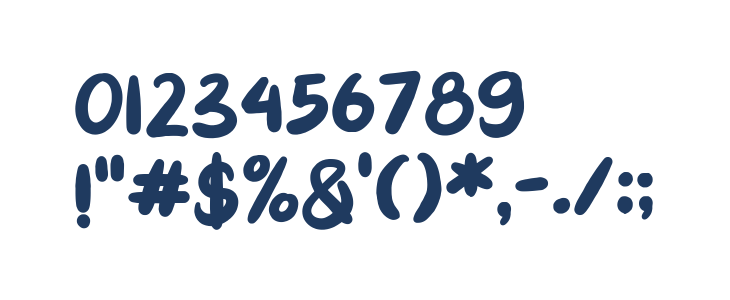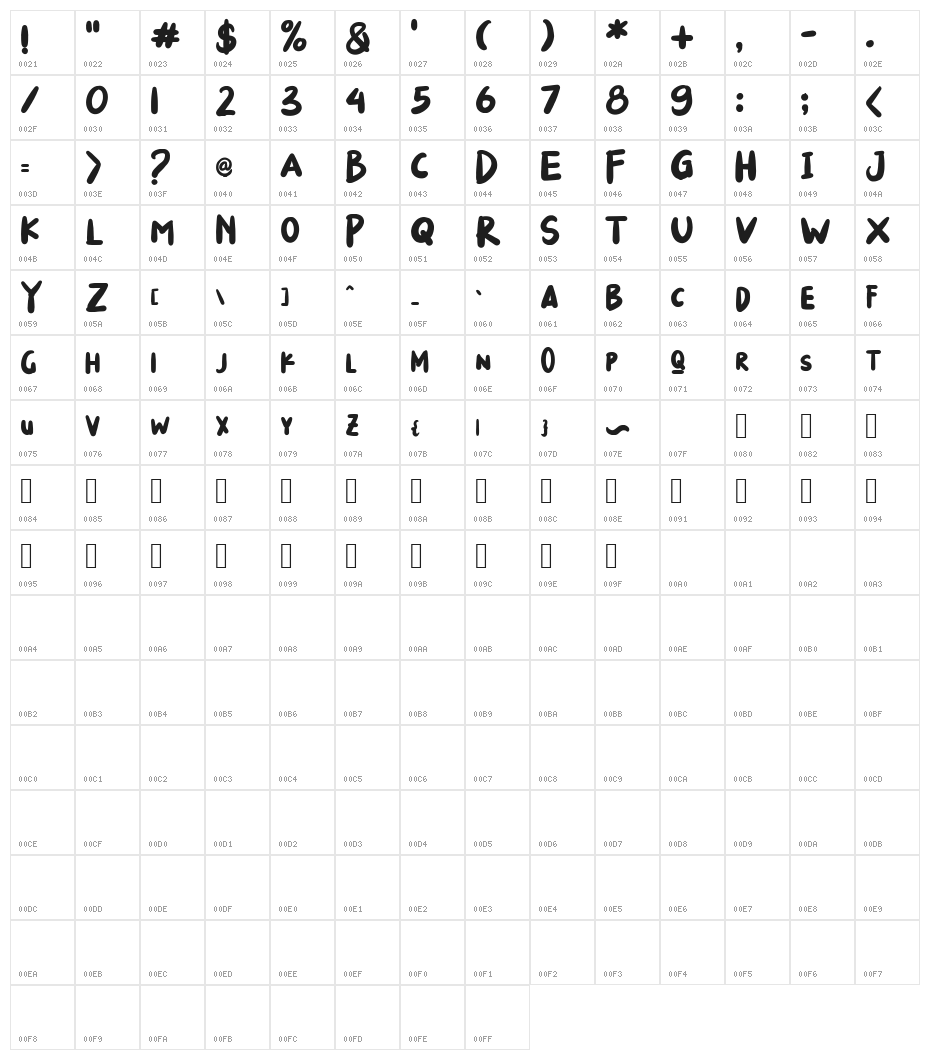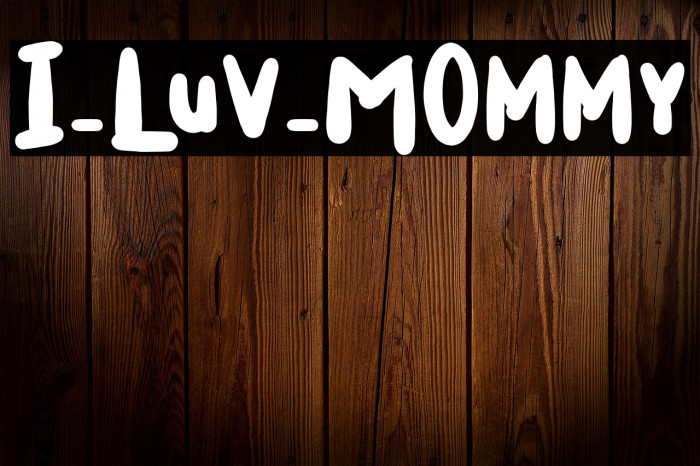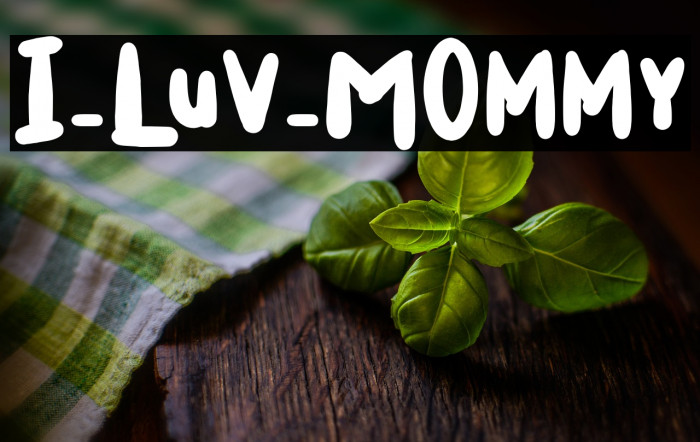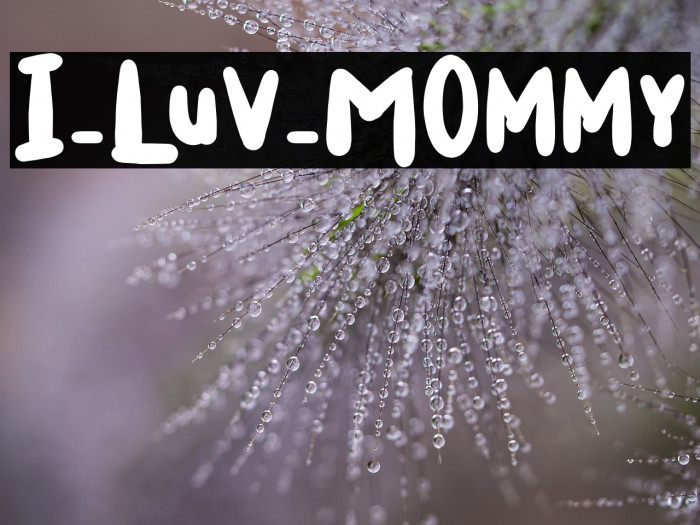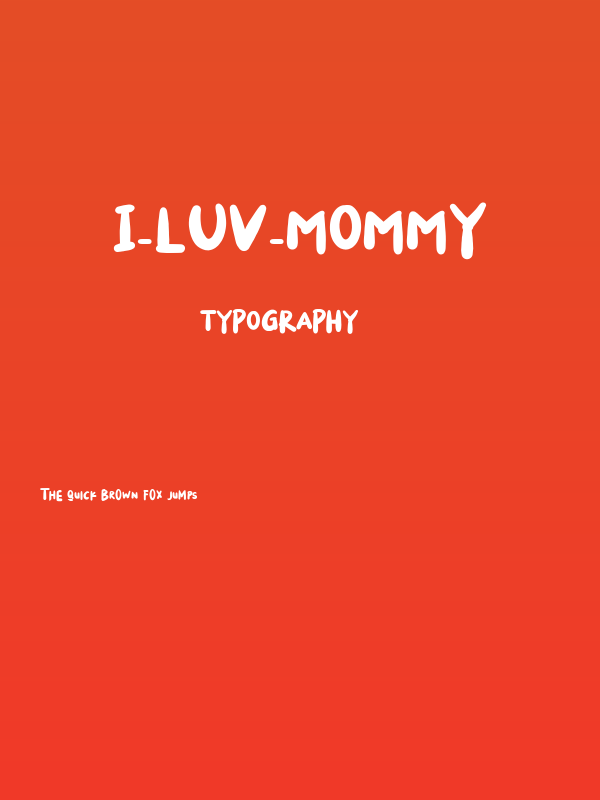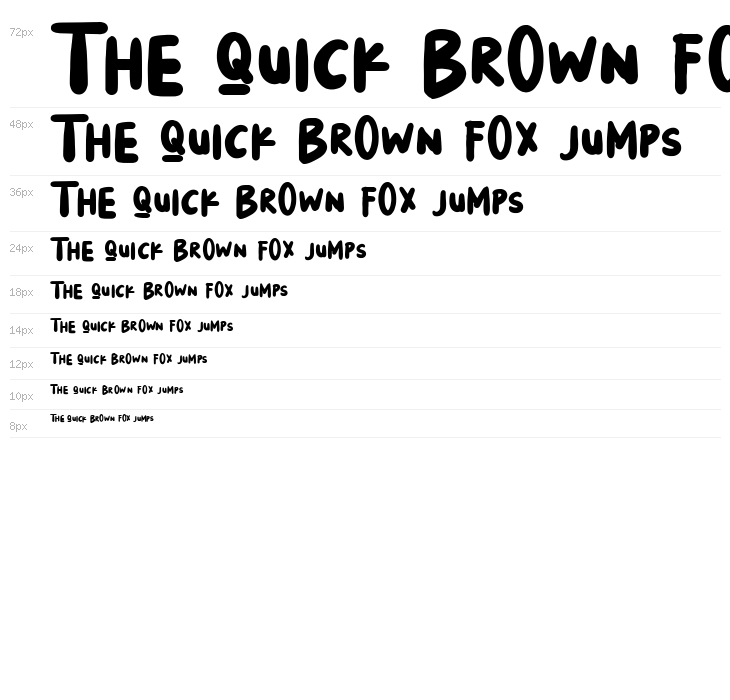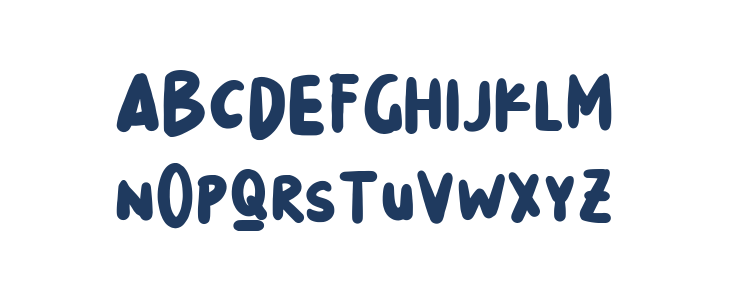
I_Luv_Mommy Font
I_Luv_Mommy Description
This playful and bold font features rounded, thick strokes that give it a friendly and approachable appearance. The characters are slightly irregular, adding a hand-drawn feel that enhances its charm. The uppercase and lowercase letters maintain a consistent style, with a slight slant that suggests movement and energy. The numbers and special characters are equally bold and expressive, making them stand out. This font's overall look is casual and fun, perfect for projects that require a touch of whimsy and personality.
Overall StylePlayful
Proposed ProjectsIdeal for children's books, playful branding, greeting cards, and casual posters.